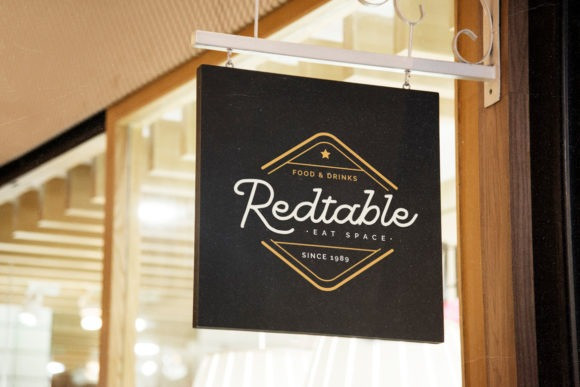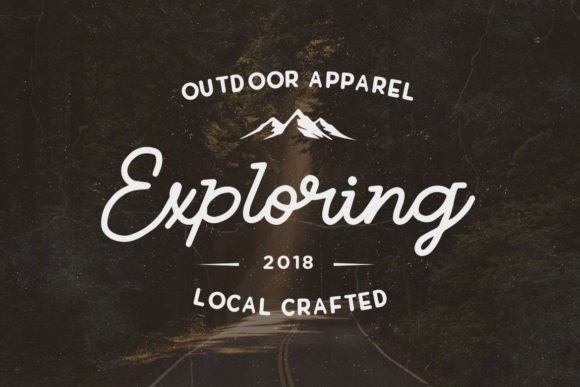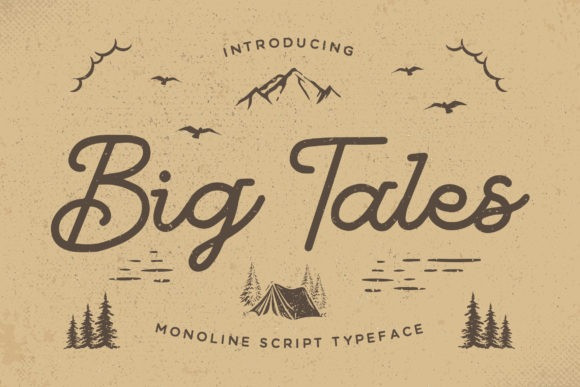
Big Tales Font
Big Tales Font is a beautiful, well balanced and vintage styled script font. It is defined by smooth curves and is perfect for fashion branding or editorial designs. Add it confidently to your projects, and you will love the results.